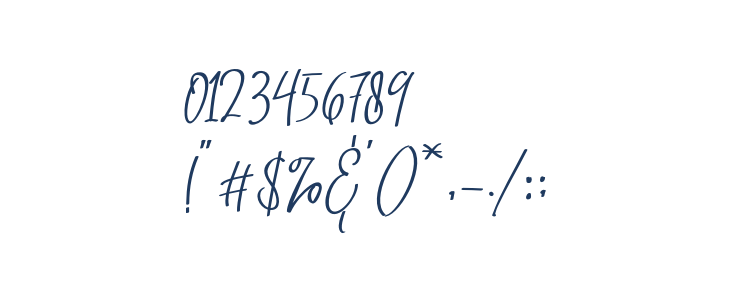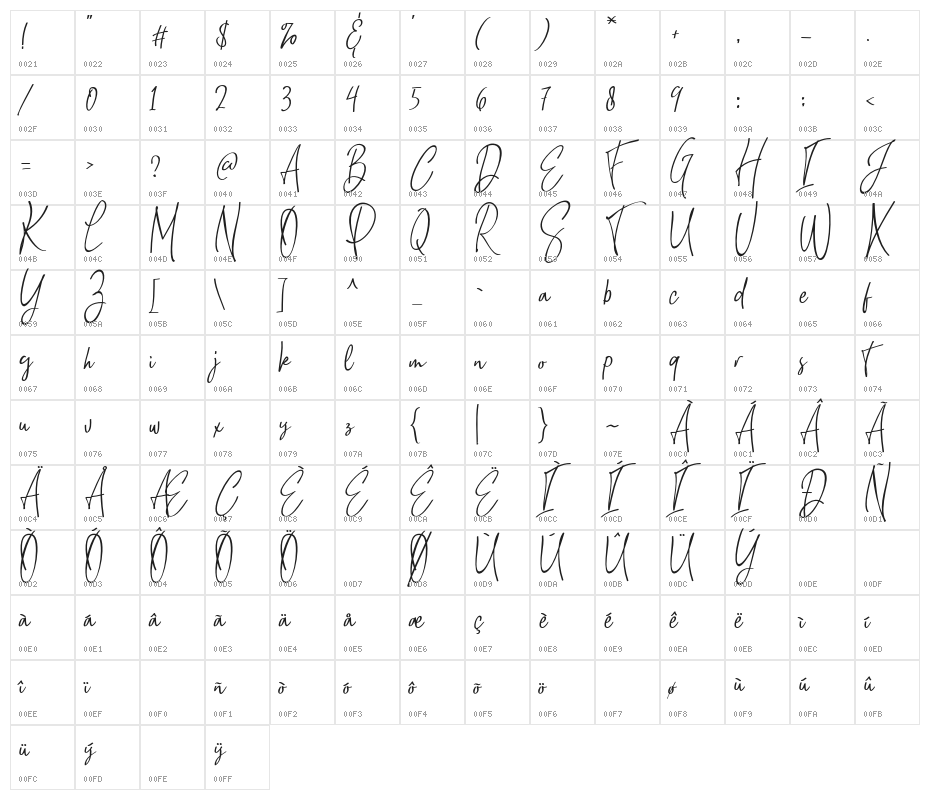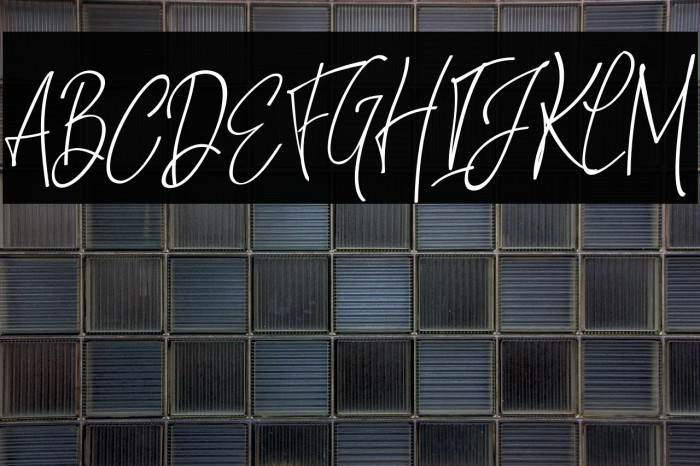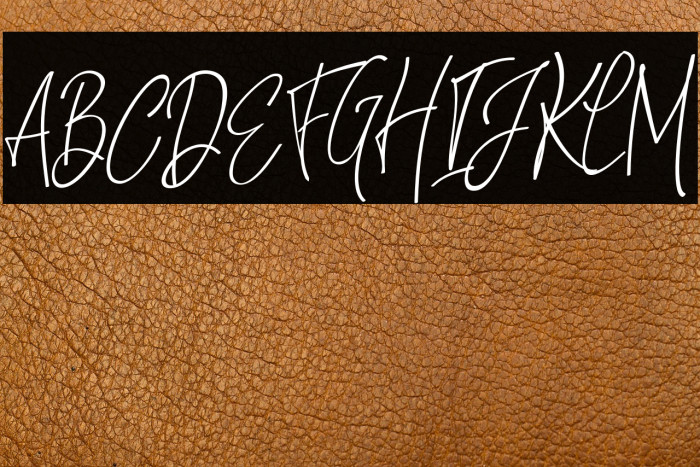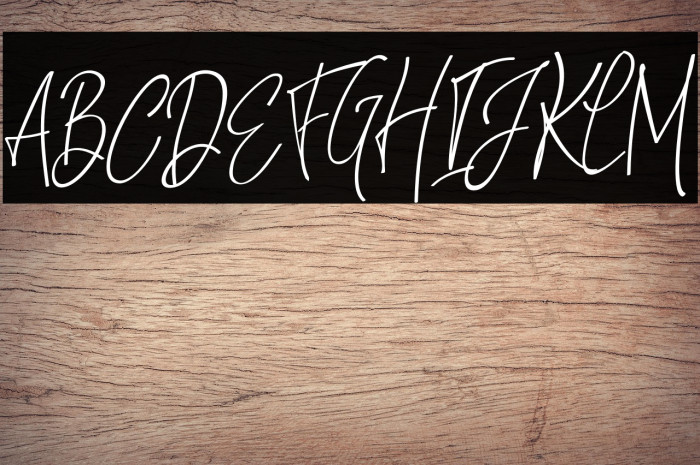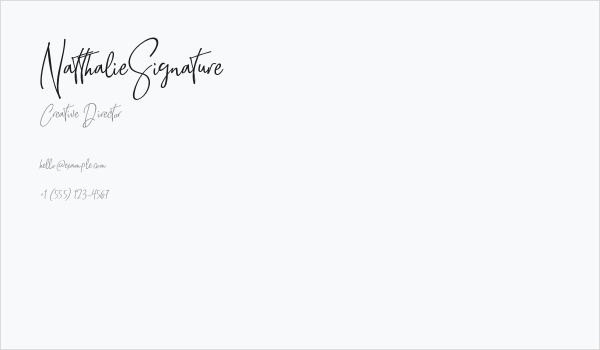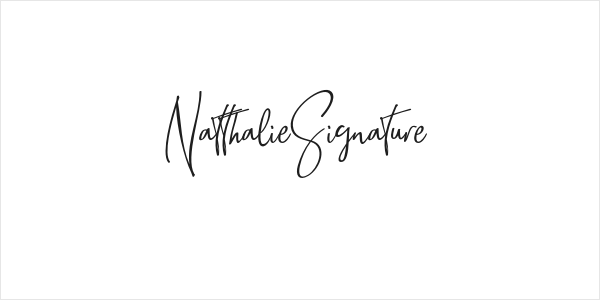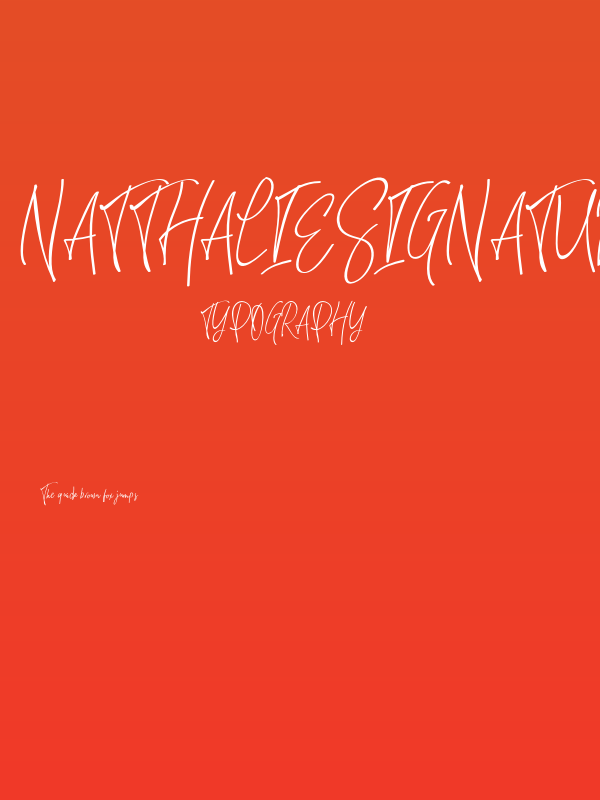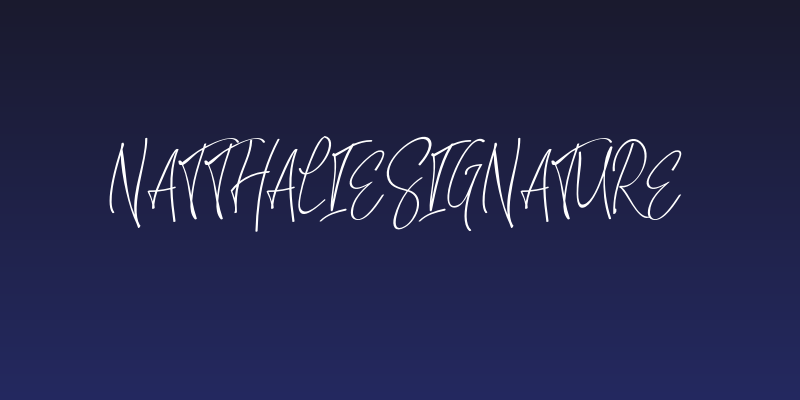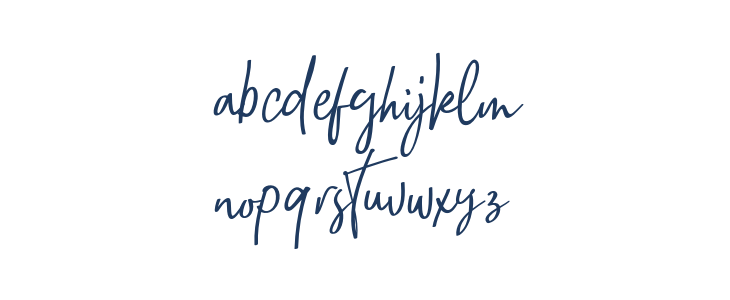
NatthalieSignature Font
NatthalieSignature Description
This font exudes a personal and artistic flair, reminiscent of a handwritten signature. The uppercase letters are tall and slender, with elegant curves and a slight slant, giving them a sophisticated and stylish appearance. The lowercase letters maintain a consistent flow, with smooth connections that enhance the script-like quality. Numbers and special characters are crafted with the same attention to detail, ensuring a cohesive look across all elements. The overall design is both graceful and dynamic, making it ideal for projects that require a touch of elegance and individuality.
| Use Case | Logos, Invitations, Personal branding |
| Proposed Projects | Ideal for wedding invitations, personal branding, logos, and artistic projects that require a unique and elegant script. |